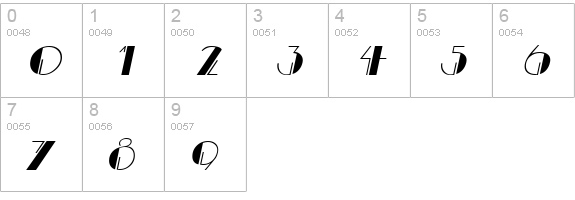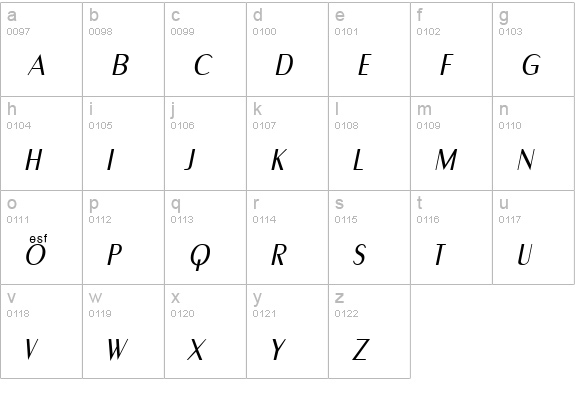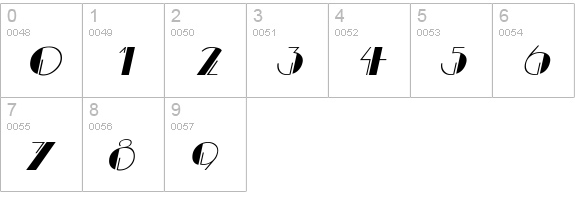
Dalith Oblique Font Details
Dalith Oblique is a distinctive, italic variant in the Dalith typeface family \xE2\x80\x94 well suited to design and typography projects.
Dalith Oblique is a mesmerizingly elegant font that effortlessly combines modernity with sophistication. Its slanted and stylish design adds a touch of uniqueness and versatility to any project, making it perfect for both professional and creative endeavors. With its graceful curves and subtle angles, Dalith Oblique exudes a sense of refined creativity, making it ideal for branding, logo design, packaging, and more. Its sleek and sleek appearance lends itself well to various applications, from websites to print materials, ensuring your message is conveyed with style and flair. One of the best features of Dalith Oblique is that it is freely available to download at FontsMarket.com. This means that you can enjoy the beauty and charm of this font without any cost or restrictions. Whether you are a designer on a tight budget or simply appreciate the value of free resources, Dalith Oblique is the perfect choice for you. The versatility of Dalith Oblique allows it to seamlessly blend into any design concept, adapting effortlessly to different moods and themes. Its clean and legible letterforms ensure clear communication, while its unique slant adds a touch of dynamism and visual interest. Dalith Oblique is a font that stands out from the crowd, making a bold statement and captivating audiences. Its timeless appeal and modern twist make it a font that will never go out of style. So why wait? Download Dalith Oblique today and let your designs come to life with its beauty and grace.